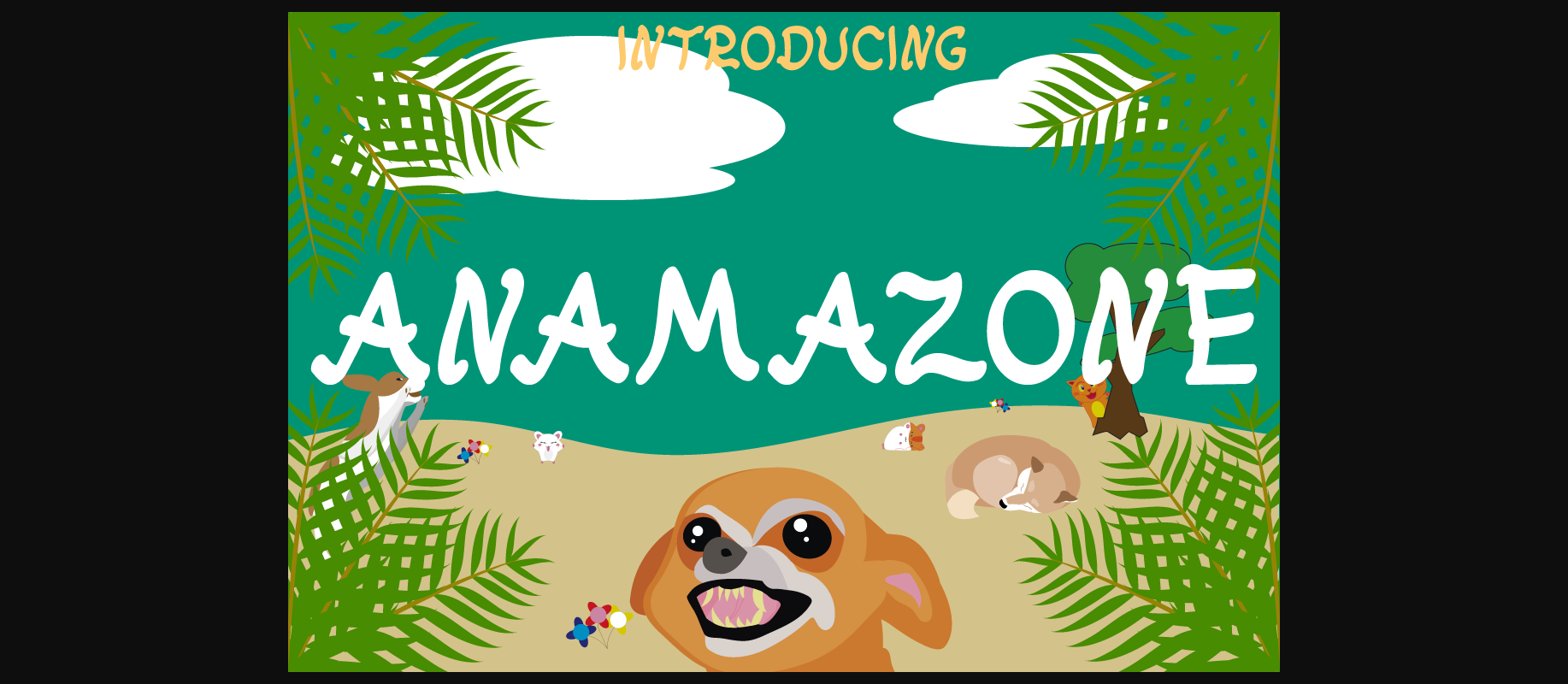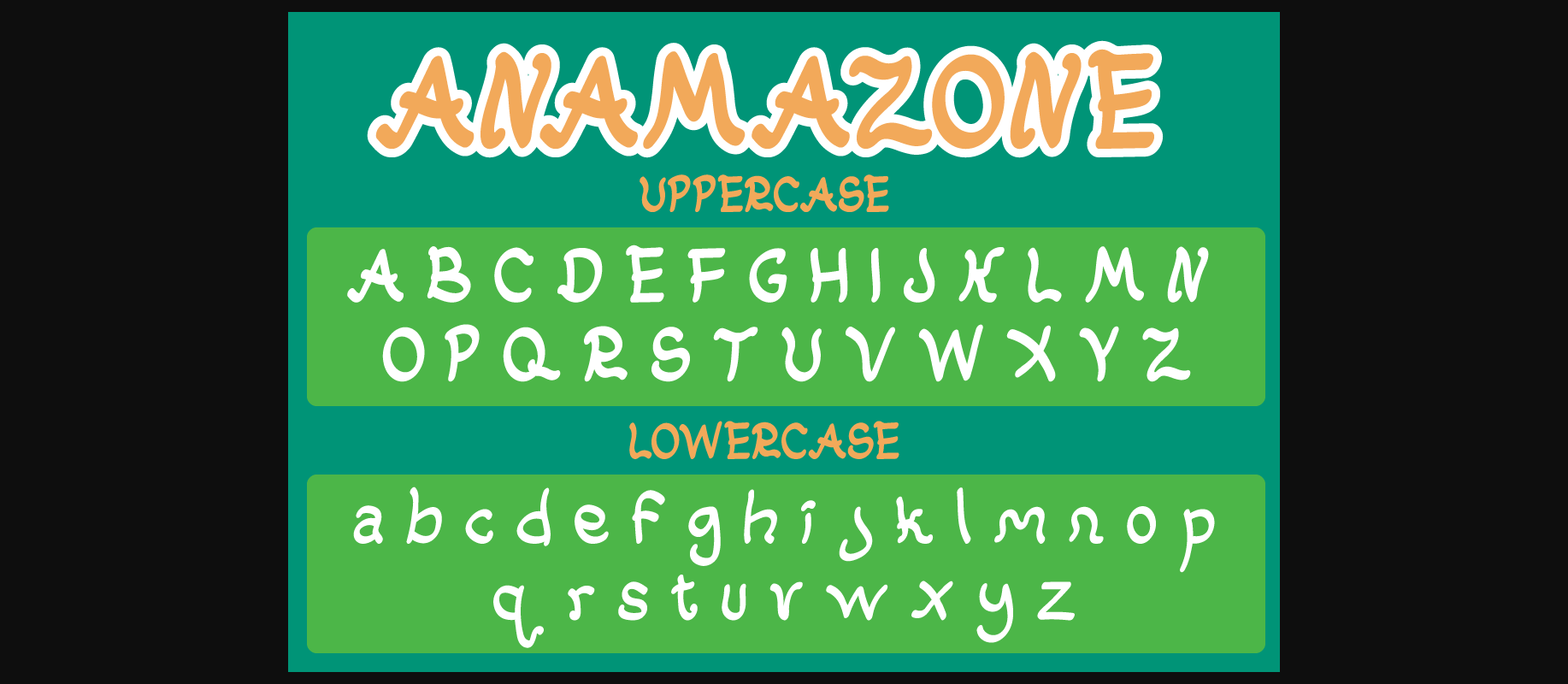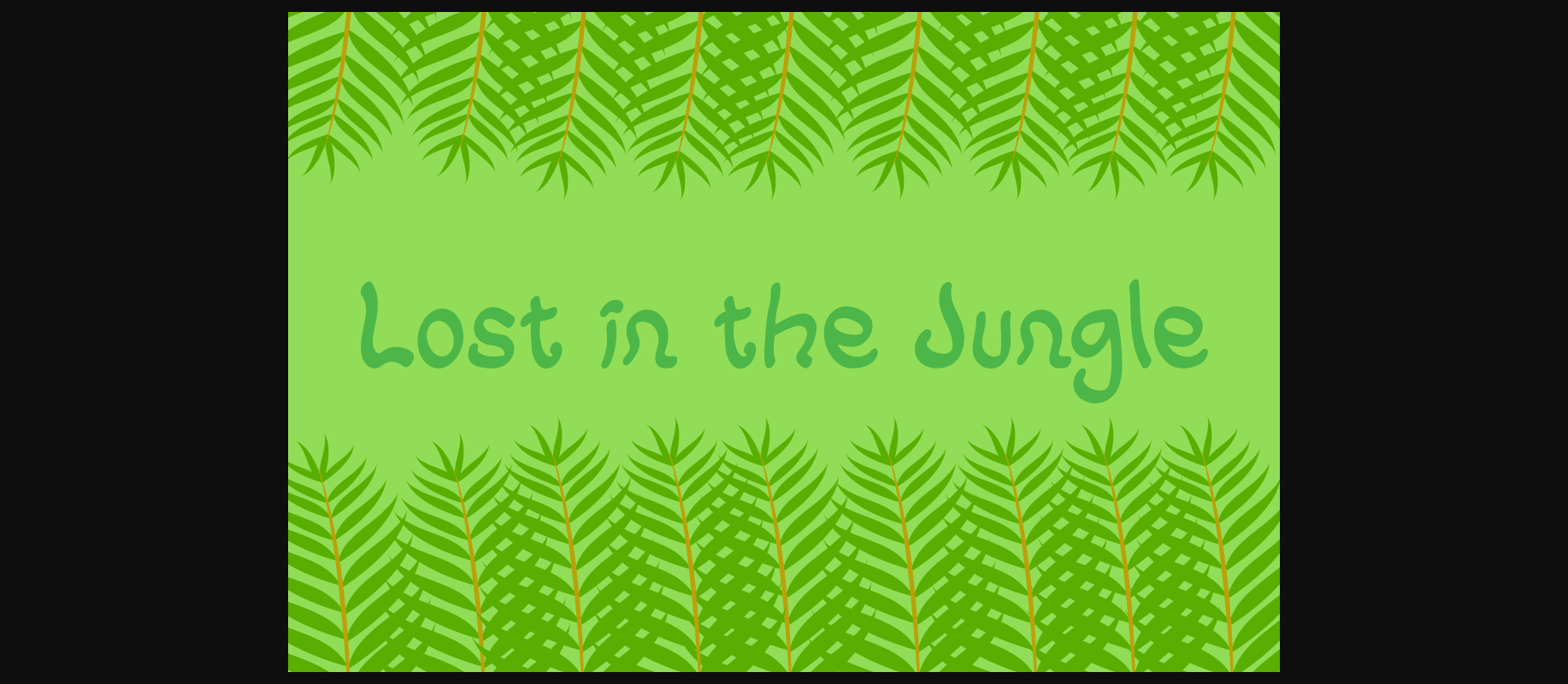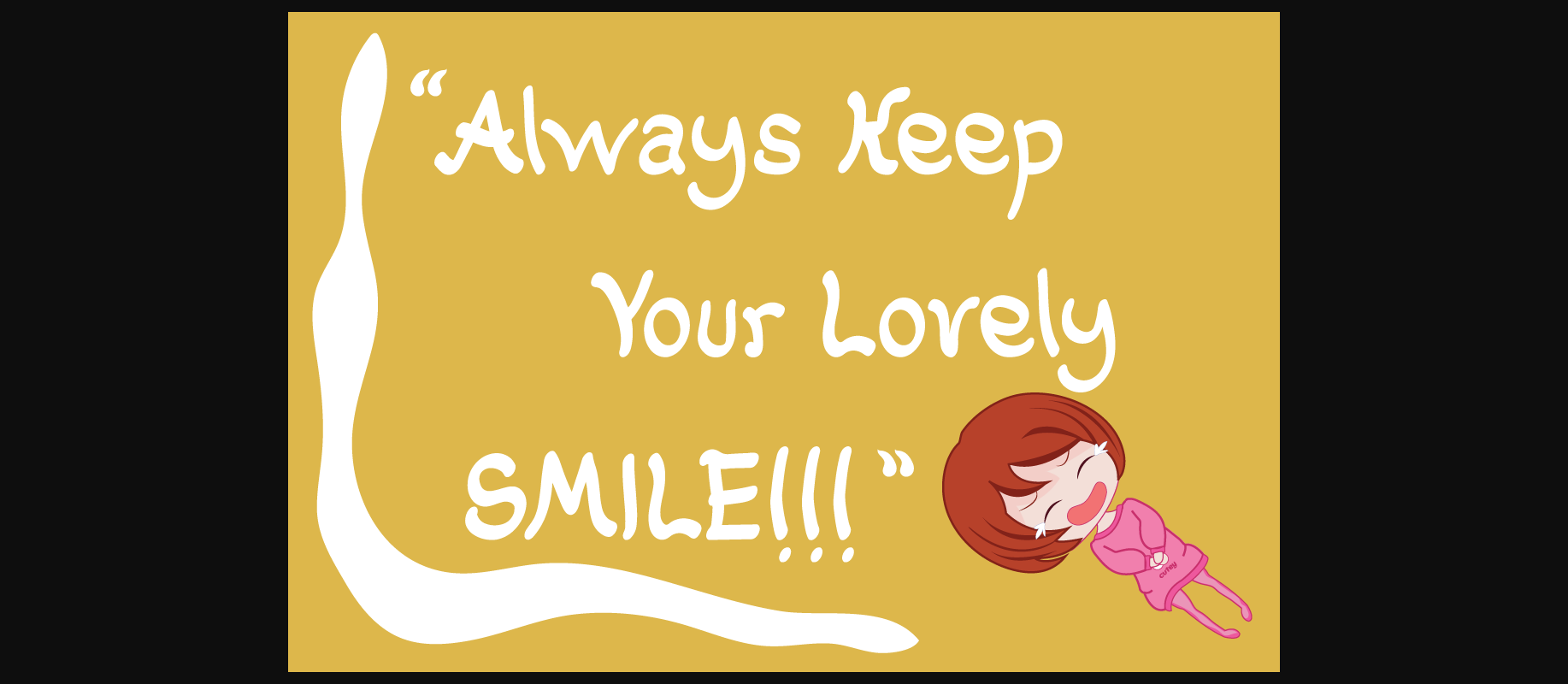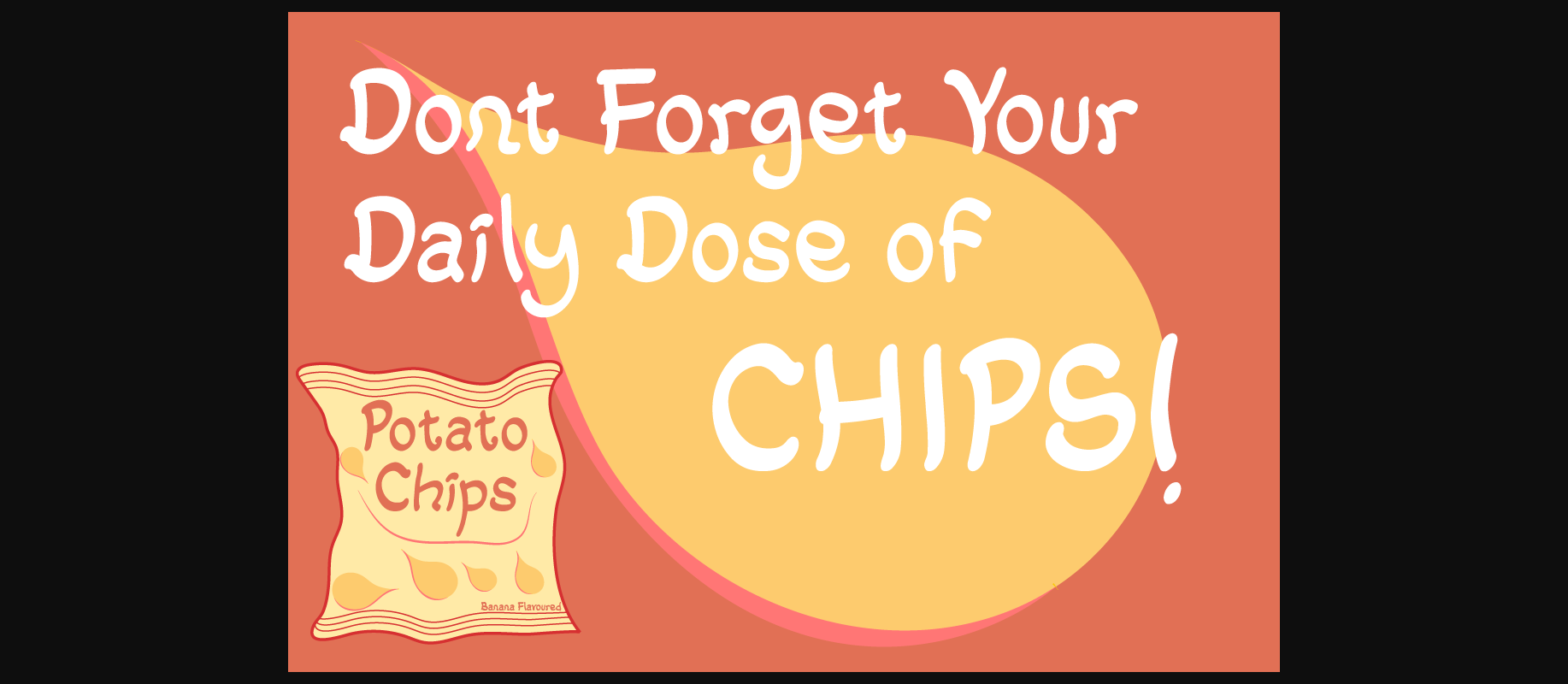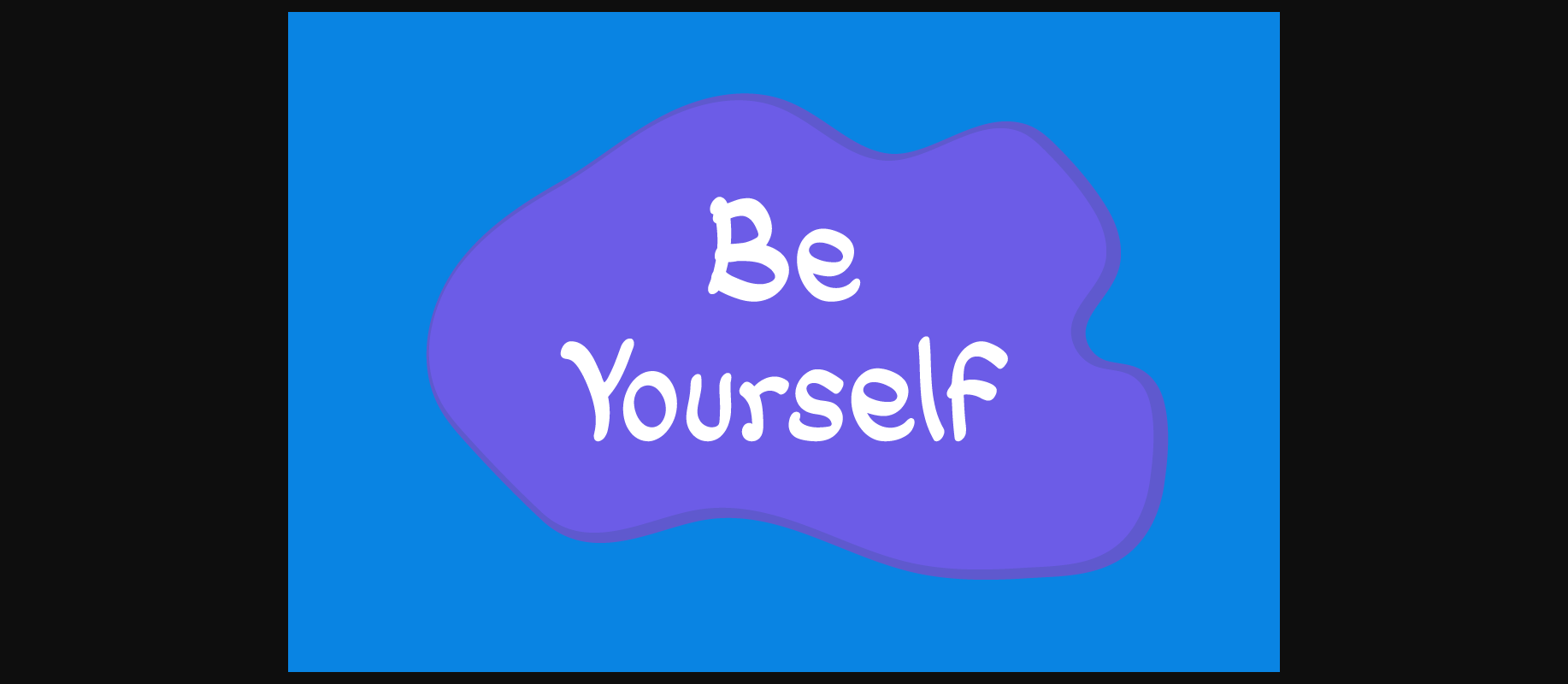
Anamazone Font
About Anamazone Font
Anamazone is a beautiful and playful font with a unique charm. Put a whimsical charm on any design project with this lovely font.